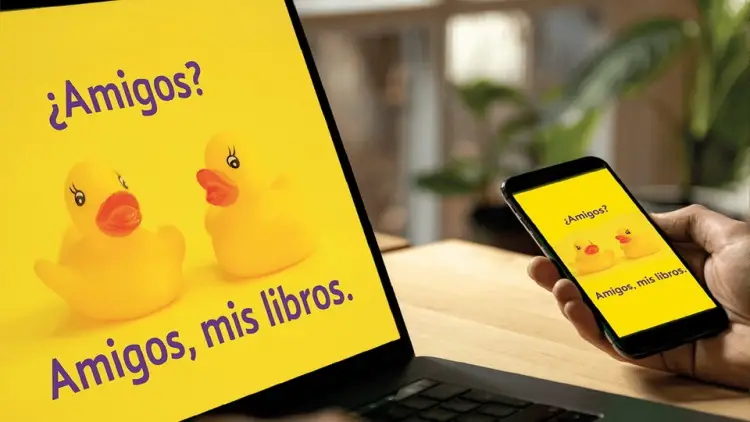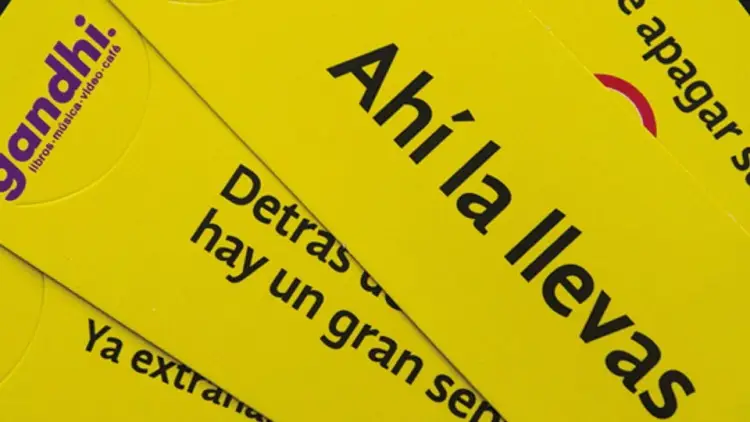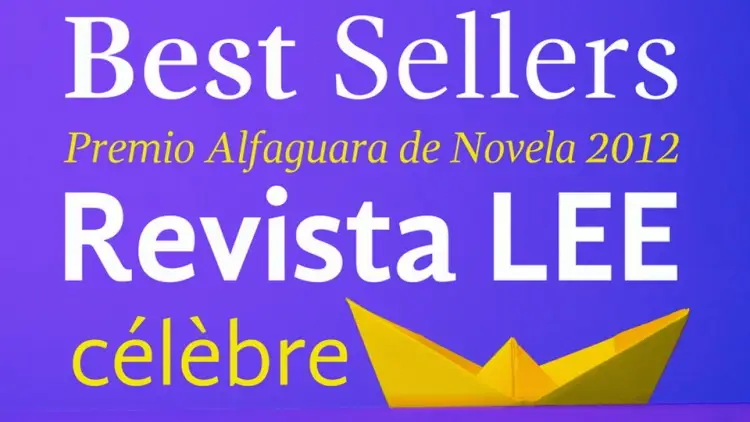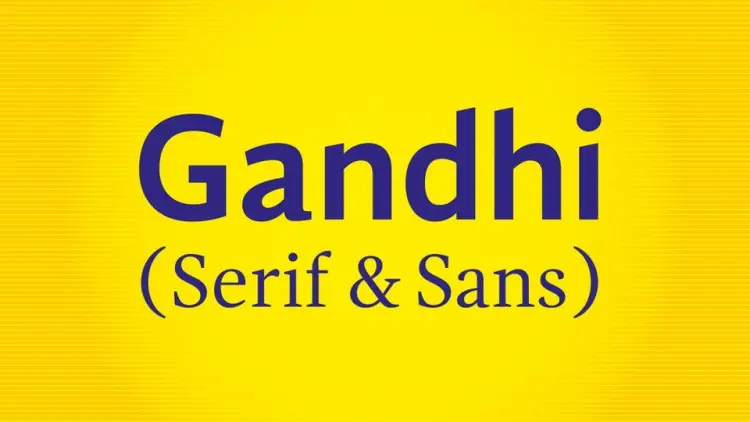
Gandhi Serif & Sans Font
The Gandhi Serif & Sans Font is a versatile typeface that combines elegance with modernity. Featuring both serif and sans-serif styles, this font family is perfect for a wide range of design projects, from branding to editorial layouts.
• Includes both serif and sans-serif styles
• Multiple weights for flexibility
• Clean and legible design
Ideal for branding, logos, print materials, and web design, the Gandhi Serif & Sans Font can elevate your projects with its sophisticated appearance.